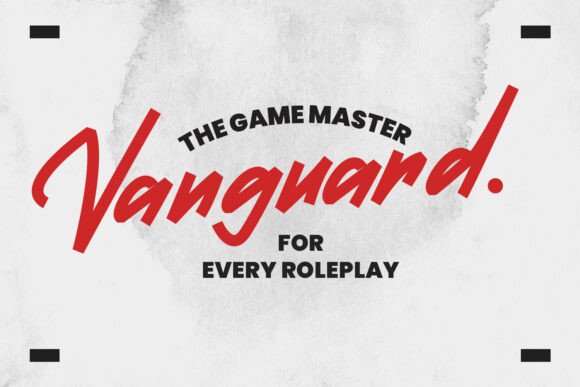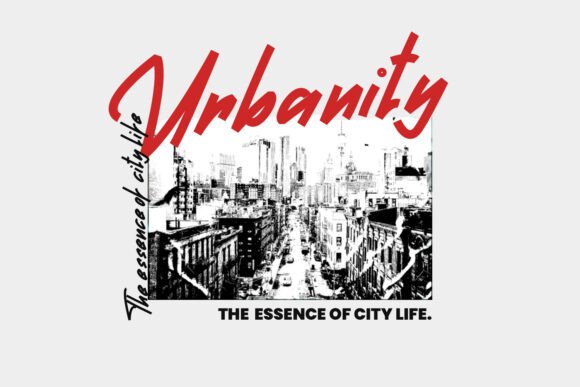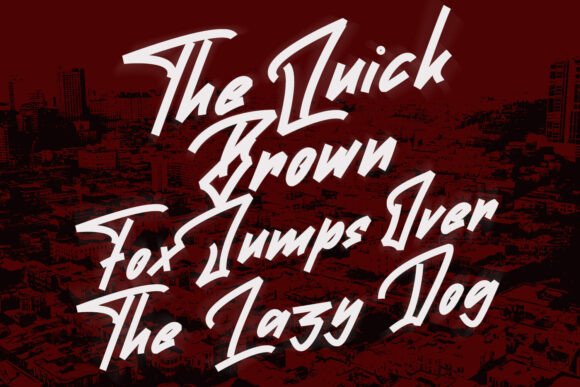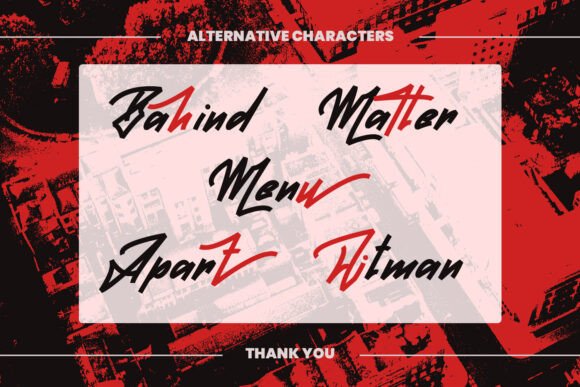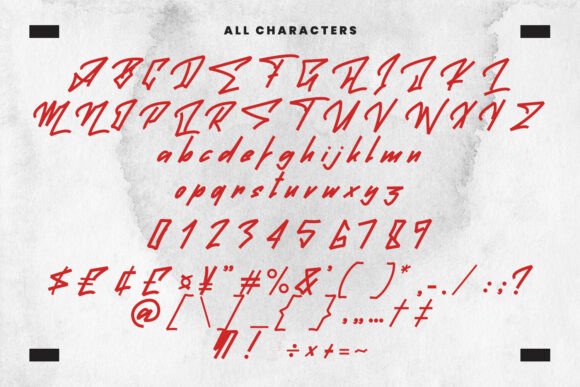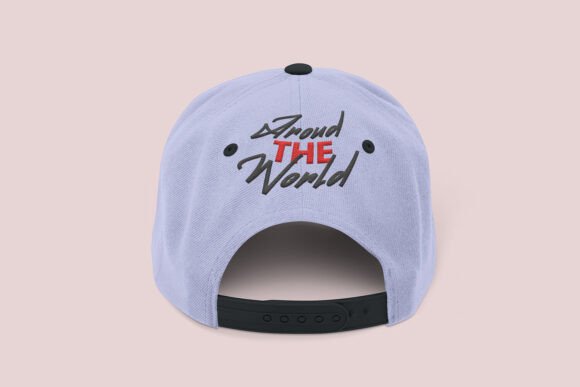
Introduction to Kaliger Envot Font
Remember that moment when you finally find the perfect font to bring your creative project to life? The thrill of seeing your words and ideas transform into a visually stunning masterpiece is like nothing else. For designers, this moment is what drives us to keep pushing the boundaries of creativity and innovation. And today, we’re excited to introduce you to a game-changing font that will make this moment a reality: the Kaliger Envot Font.
This masterfully designed handwritten font is a true gem, offering a level of quality and sophistication that’s hard to find in other fonts. With its unique characteristics and high-end aesthetic, the Kaliger Envot Font is the perfect design resource for any creative project, from elegant invitations to modern branding materials.
Key Features of Kaliger Envot Font
- High-quality font design with a transparent background, perfect for creative projects that require a modern and sleek aesthetic.
- Features a unique and stylish design that can add a touch of sophistication to any creative project, from logos to brochures.
- Perfect for use in a variety of creative projects, including branding, advertising, and digital design.
Honest Review: Kaliger Envot Font
I recently had the opportunity to work with the Kaliger Envot Font for a creative project, and I must say it’s been a game-changer. This font is perfect for designers who want a high-quality, unique look for their designs. The transparent background is a great feature that allows for seamless integration with other design elements.
- ✨ Unique and stylish design that sets your project apart
- ✨ High-quality typography that’s perfect for both print and digital designs
While the Kaliger Envot Font is a great addition to any designer’s toolkit, there are a few limitations to consider:
- ⚠️ Limited character set, which may not be suitable for longer texts
- ⚠️ Not ideal for body text, as it can be quite busy and difficult to read
Overall, I’m impressed with the Kaliger Envot Font and would highly recommend it for designers looking for a unique and stylish font for their creative projects. Just be sure to use it sparingly and in the right context to get the most out of it.
The Kaliger Envot Font is a high-quality design resource ideal for creative projects. This versatile font offers a unique aesthetic and can be easily integrated into various design applications.
The Kaliger Envot Font is suitable for a variety of design projects, including:
- Business cards and invitations
- Use a transparent background to create a clean and modern look
- Combine the font with other design elements to create a visually appealing design
Alternatives to Kaliger Envot Font
Montserrat Font is a high-quality, sans-serif font perfect for creative projects that require a modern and sleek design. It features a clean and transparent background, making it ideal for use on various design resources. Montserrat Font is available for free download and is widely used in the design industry. It compares to Kaliger Envot Font in terms of its modern and minimalist design, but Montserrat Font is more versatile and can be used in a wider range of creative projects.
Lato Font is a popular, open-source font that offers a high-quality and elegant design. It features a transparent background and is ideal for use in creative projects that require a sophisticated and refined look. Lato Font is available for free download and is widely used in the design industry. It compares to Kaliger Envot Font in terms of its elegant design, but Lato Font is more versatile and can be used in a wider range of creative projects.